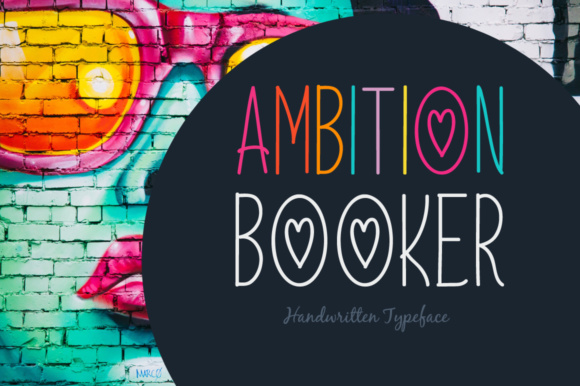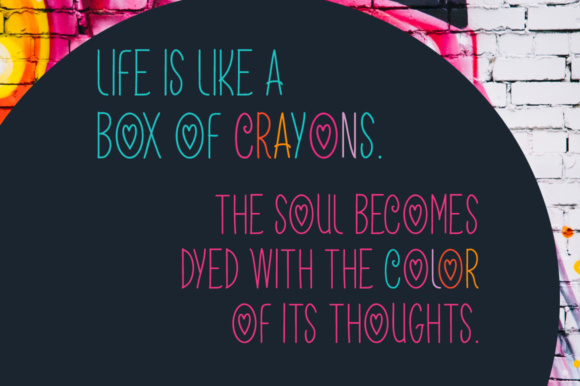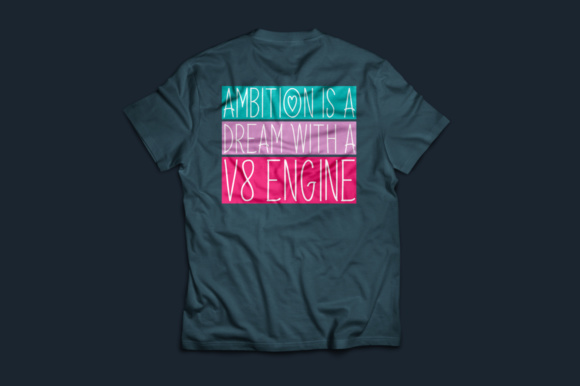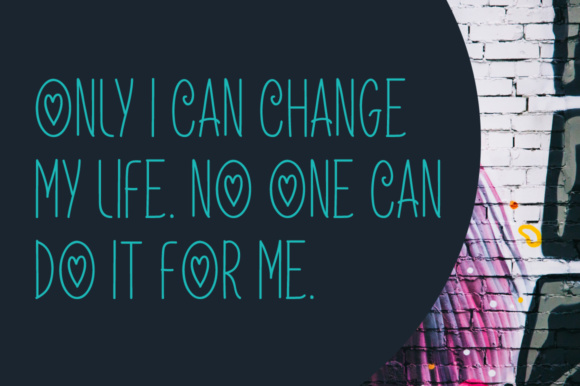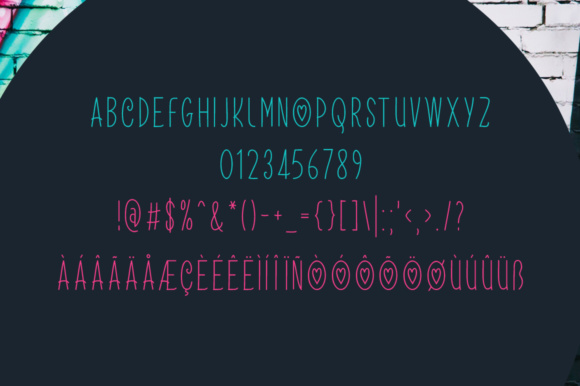
Ambition Booker Font
About Ambition Booker Font
The Ambition Booker is a brand new handwritten font. It’s perfect stationery, logos, t-shirt, paper, print design, website header, photo frame, flyer, music cover, poster, image slider and much more.